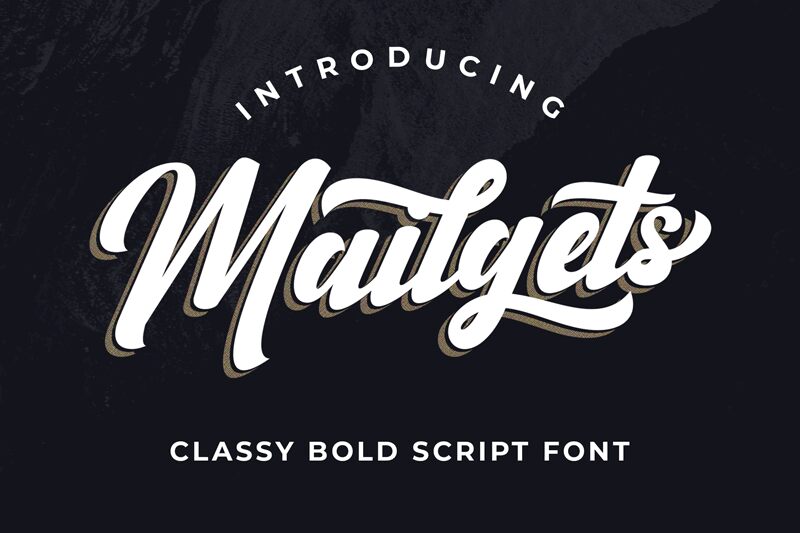
Mailgets, crafted by MJB Letters, is a font that exudes a sense of fluidity and flair reminiscent of confident brush strokes on canvas. Its bold and dynamic character sweeps across the page, offering a visual rhythm that's both lively and engaging. The sweeping curves and varying thickness within each letter give it a hand-painted quality, imbuing any text with an artistic touch.
This font's expressive style makes it an ideal choice for projects that call for a personal, handmade feel—perfect for branding, invitations, or any design seeking to convey creativity and individuality. With its distinctive brush aesthetic, Mailgets stands out as a versatile typeface that can add character to various design contexts while maintaining readability and impact.